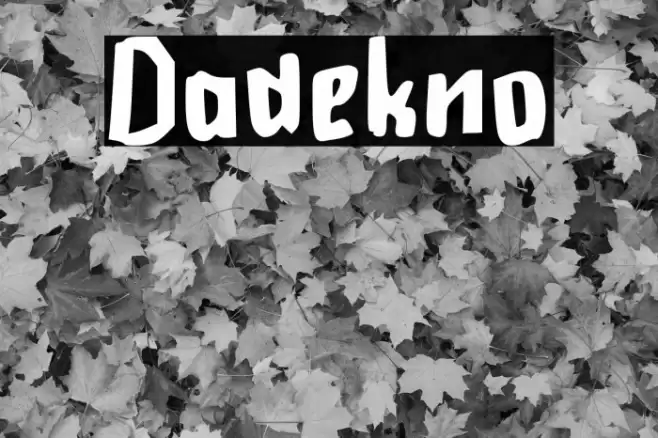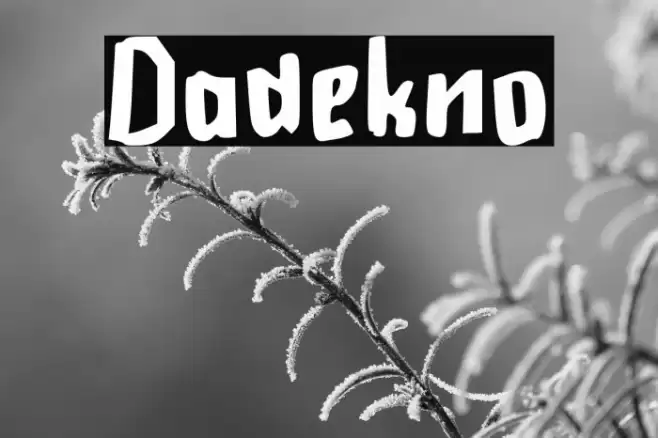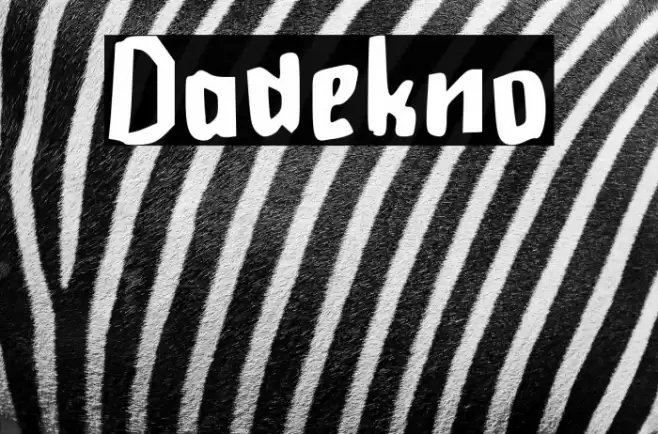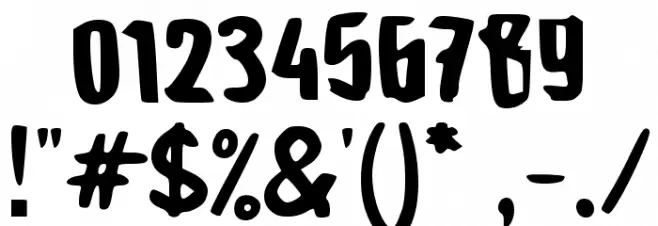
Dadekno Font
Dadekno Description
This font features a playful and bold style with a hand-drawn appearance. The letters are slightly irregular, giving it a casual and informal feel. The uppercase and lowercase characters maintain a consistent weight, while the numbers and special characters follow the same design ethos. The strokes are thick and rounded, contributing to its friendly and approachable look. This font is well-suited for projects that require a touch of whimsy and creativity, such as children's books, posters, and playful branding.
A playful, bold, hand-drawn font with a casual and informal style from Cartoon fonts.
- Proposed Projects: Children's books, posters, playful branding, and creative projects.
- Overall Style: Playful